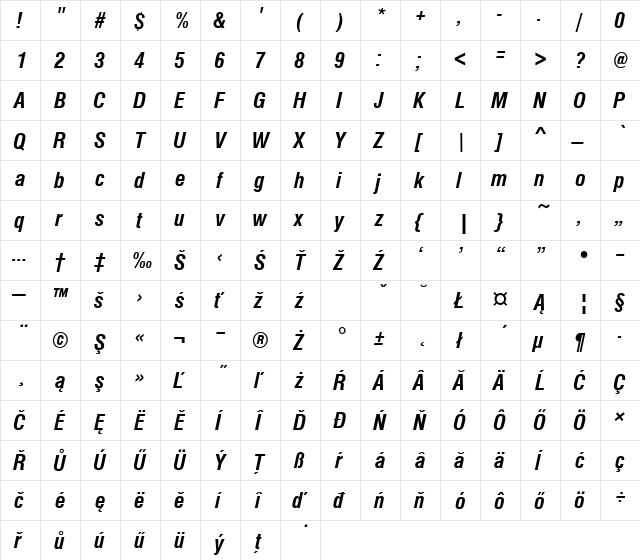
NimbuSanDEECon Bold Italic Font Preview
Design Context for NimbuSanDEECon Typeface
NimbuSanDEECon is a composed and adaptable typeface that performs quietly and consistently across a wide range of design contexts. The dynamic lean of this cut emphasises speed and emphasis in any layout. The heavy weight commands attention and anchors typographic hierarchies.
Pro Tip: Try NimbuSanDEECon for annotation and caption copy alongside an upright companion — the contrast in angle creates a dynamic but ordered typographic system.